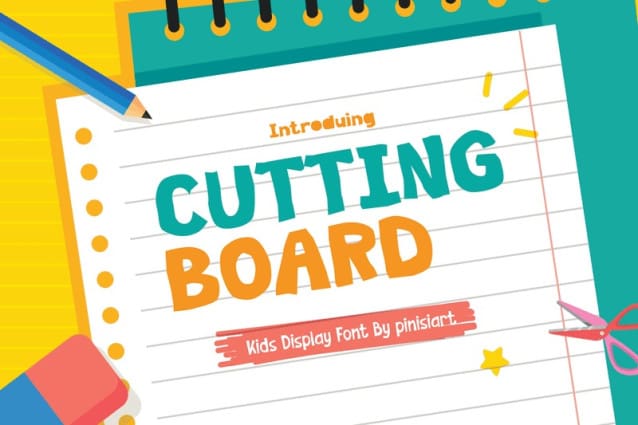
Cutting Board Font
Cutting Board Font, this versatile and engaging font is perfect for a wide range of projects, from school assignments and children’s books to YouTube videos and Instagram posts. Its Sans Serif style makes it easy to read and adds a touch of modernity to any project.
But what really sets Cutting Board apart is its unique organic and natural style, complete with plenty of foliage and floral elements. Whether you’re creating a movie poster or designing a logo for a new brand, this font is sure to stand out and make a statement.